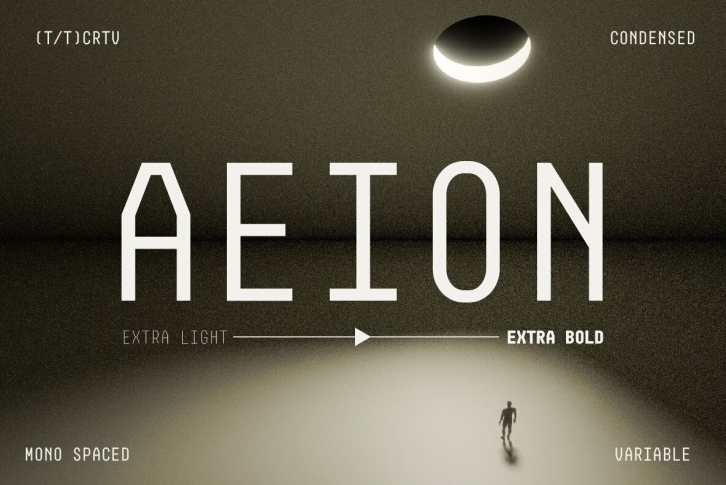
Aeion Font is a modern, condensed and monospaced typeface with 7 weights plus a variable font. Sporting both contemporary vibes as well as retro elements, this seriously stylish script was designed to make any tech-focused project stand out from the crowd - think posters, branding materials for social media or magazines; in short: this versatile font will add that extra something special to whatever you're creating.